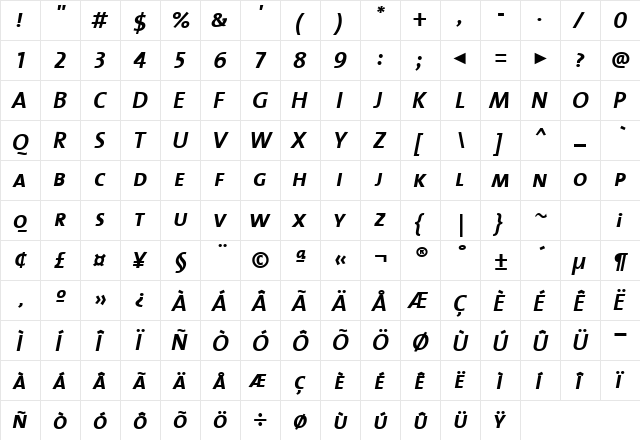
TheMixBold-CapsItalic Regular Font Preview
Design Context for TheMixBold-CapsItalic Typeface
TheMixBold-CapsItalic offers clean, dependable letterforms without strong stylistic allegiance, making it a practical choice for designers who need flexibility. The dynamic lean of this cut emphasises speed and emphasis in any layout. The heavy weight commands attention and anchors typographic hierarchies.